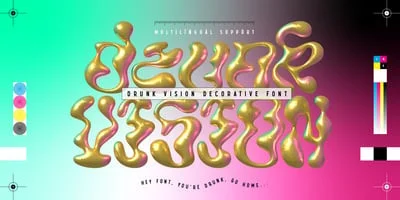
Drunk Font
The Drunk Font is perfect for creative projects including party invitations, bar and restaurant menus, nightclub flyers, entertainment posters, craft beer labels, cocktail menus, music album covers, comedy show advertisements, and quirky branding materials. This versatile typeface adds a playful, intoxicated character to any design project.
What makes Drunk Font so exciting is its unique wobbly appearance that mimics the visual effect of seeing text through tipsy eyes. The letters appear to sway and dance, creating an immediate sense of fun and celebration. This distinctive characteristic makes it an instant attention-grabber that perfectly captures the spirit of nightlife, parties, and entertainment venues.
The Drunk Font family typically includes regular, bold, and italic variations, along with special character sets and punctuation marks. Some versions may feature additional weights and stylistic alternates to provide designers with maximum flexibility for their creative projects.
Whether you're designing for hospitality businesses, entertainment venues, or party-themed events, Drunk Font offers the perfect solution for projects that need to convey a sense of fun, celebration, and casual atmosphere. This font transforms ordinary text into eye-catching designs that immediately communicate a relaxed, party-ready vibe to your audience.